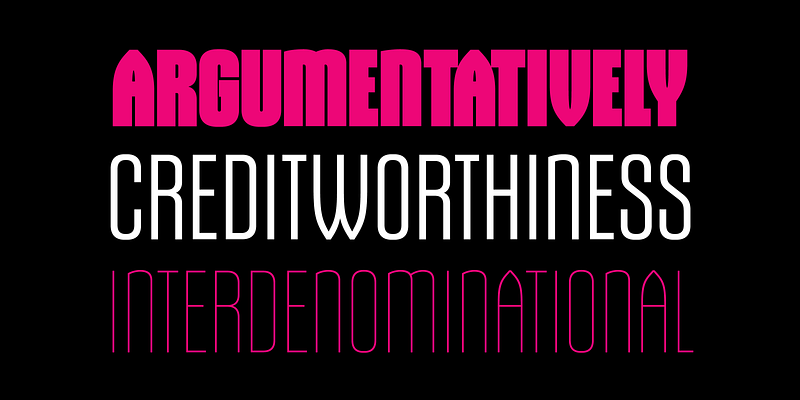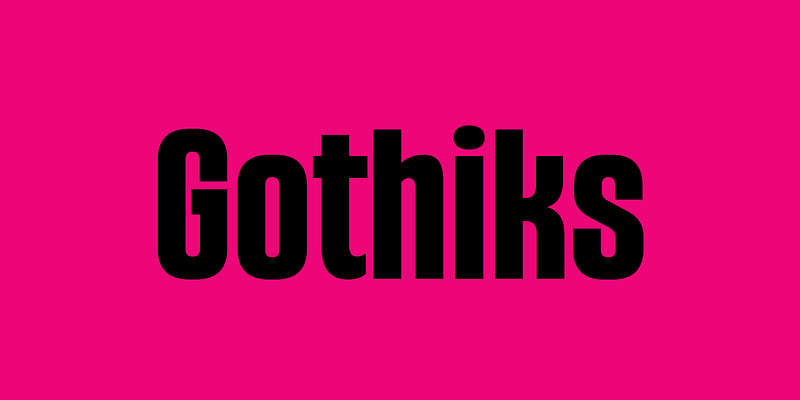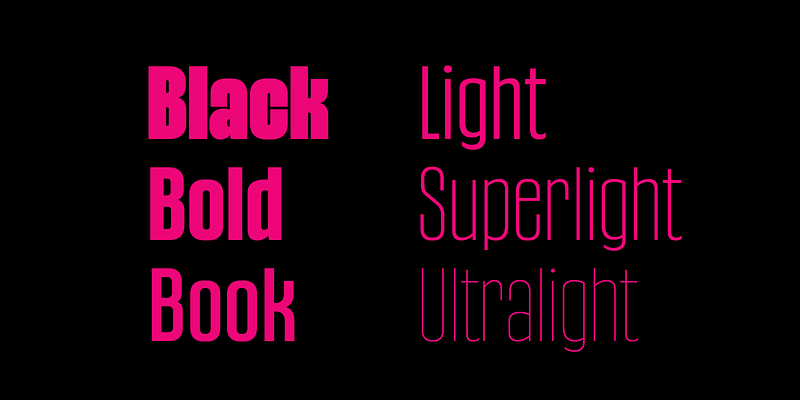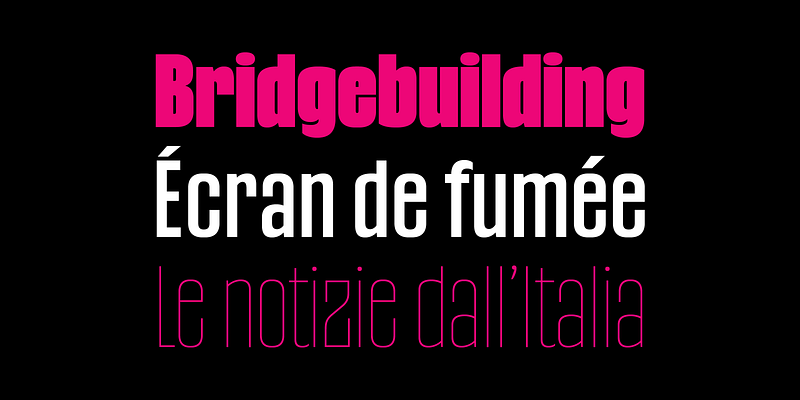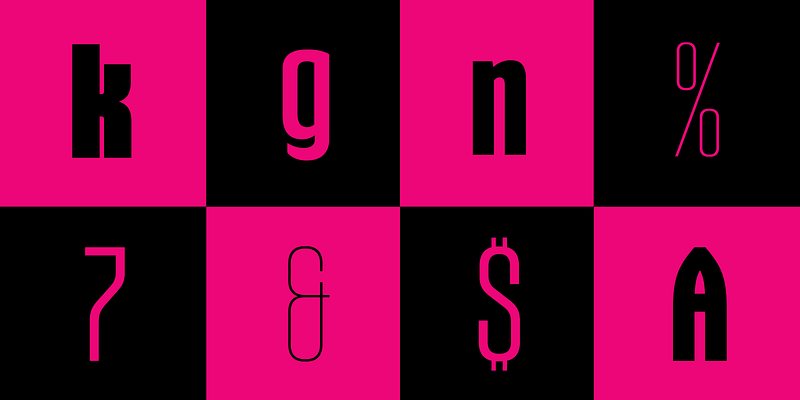
Gothiks is a narrow 6-weight display sanserif influenced by Texturas. The rithm and verticality of Texturas can be easily identified on the letters with diagonal strokes like A N M K k V v W w X x Y y Z z: here they are all vertical. This kind of morphology was chosen because it accepts condensation in a very natural way, giving to this sanserif a very unique personality. The intermediate weights can be used for short texts while extreme weights are excellent for big sizes. It has an extensive character set — with extensive language support — and many OpenType features like fractions, small capitals and different figure sets. Default figures align with lowercase. The typeface’s name refers to the plural of the word Gothic, which in turn can refer to both sanserifs or Blackletter, depending on geographic location.